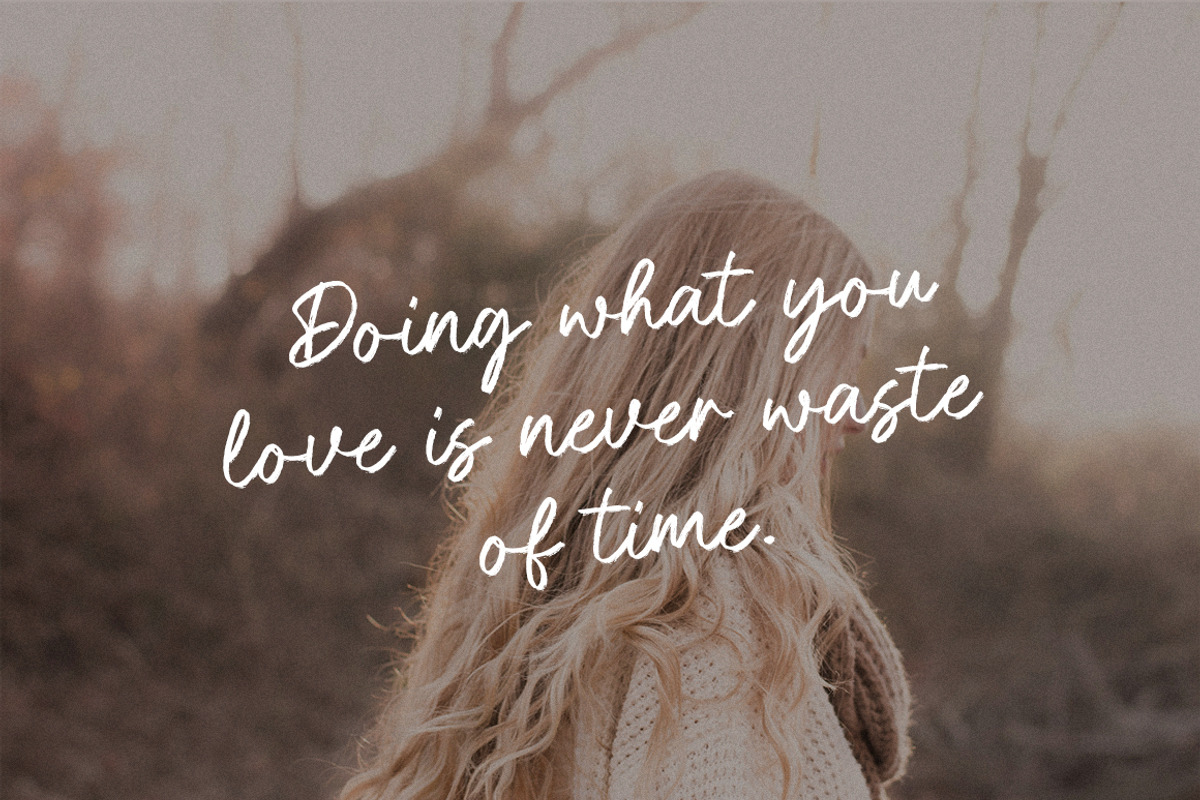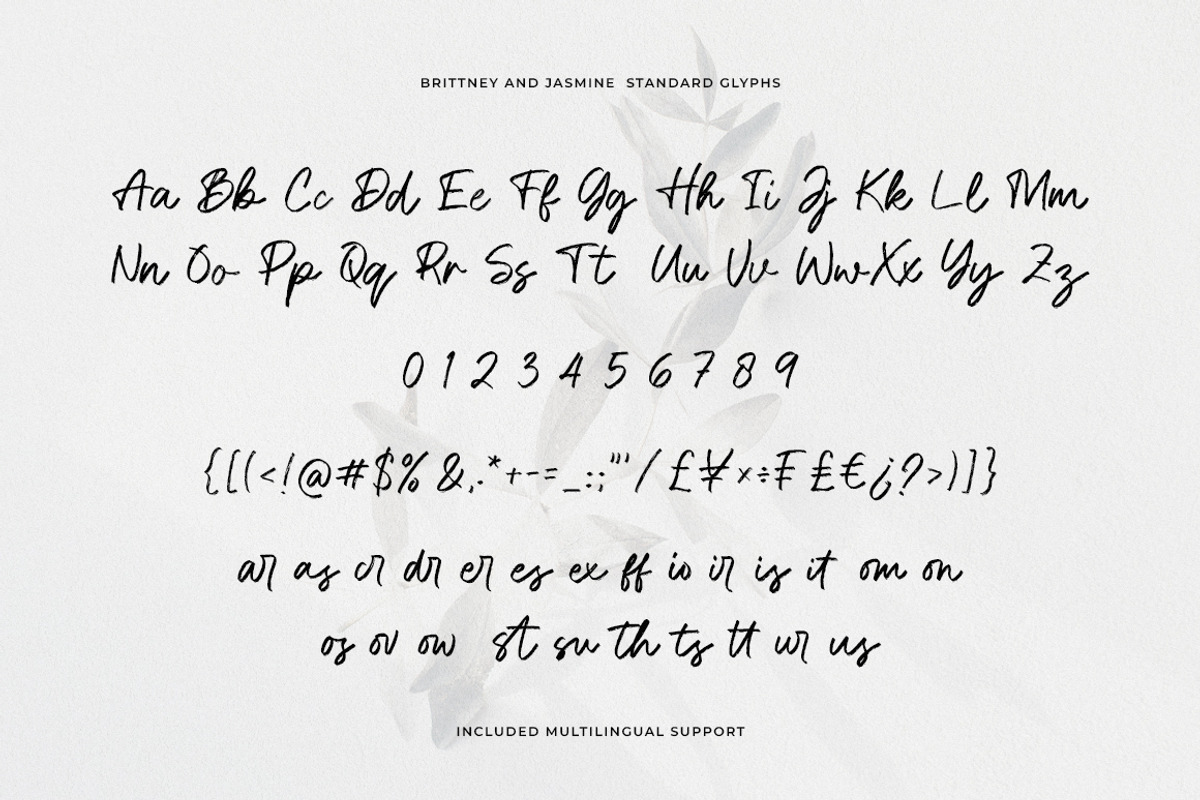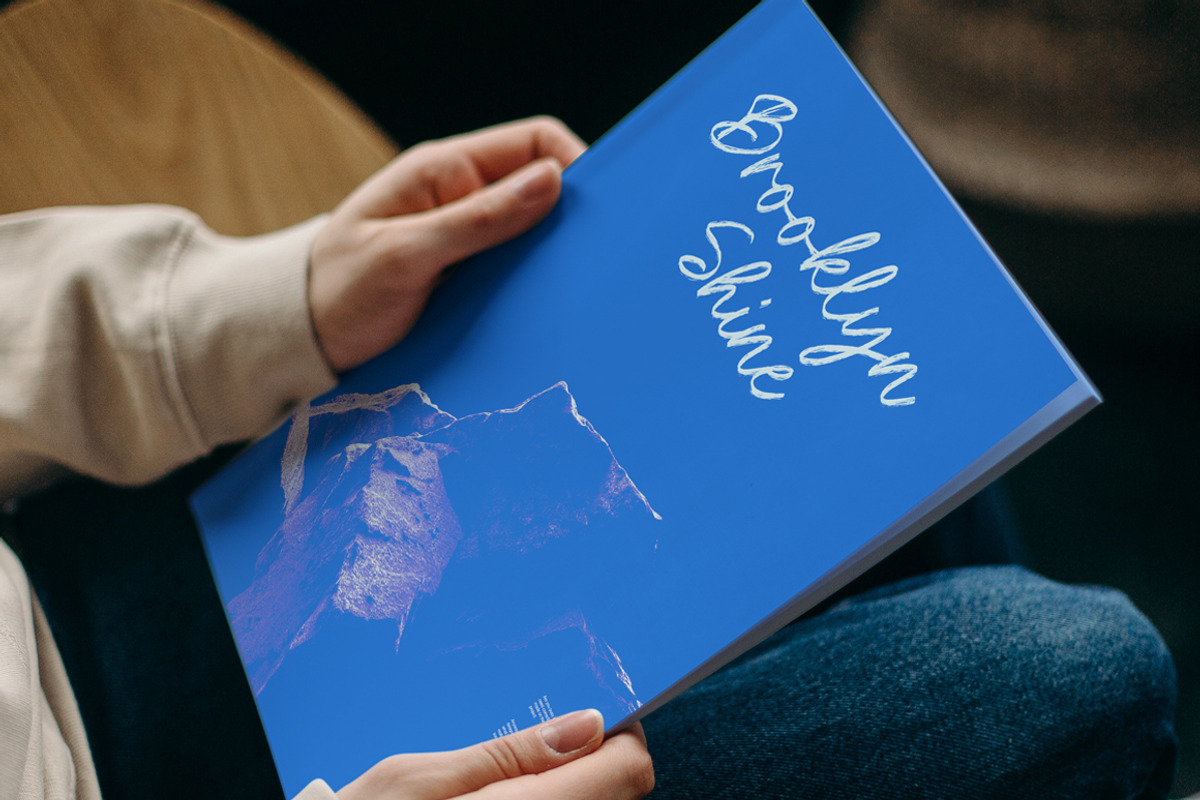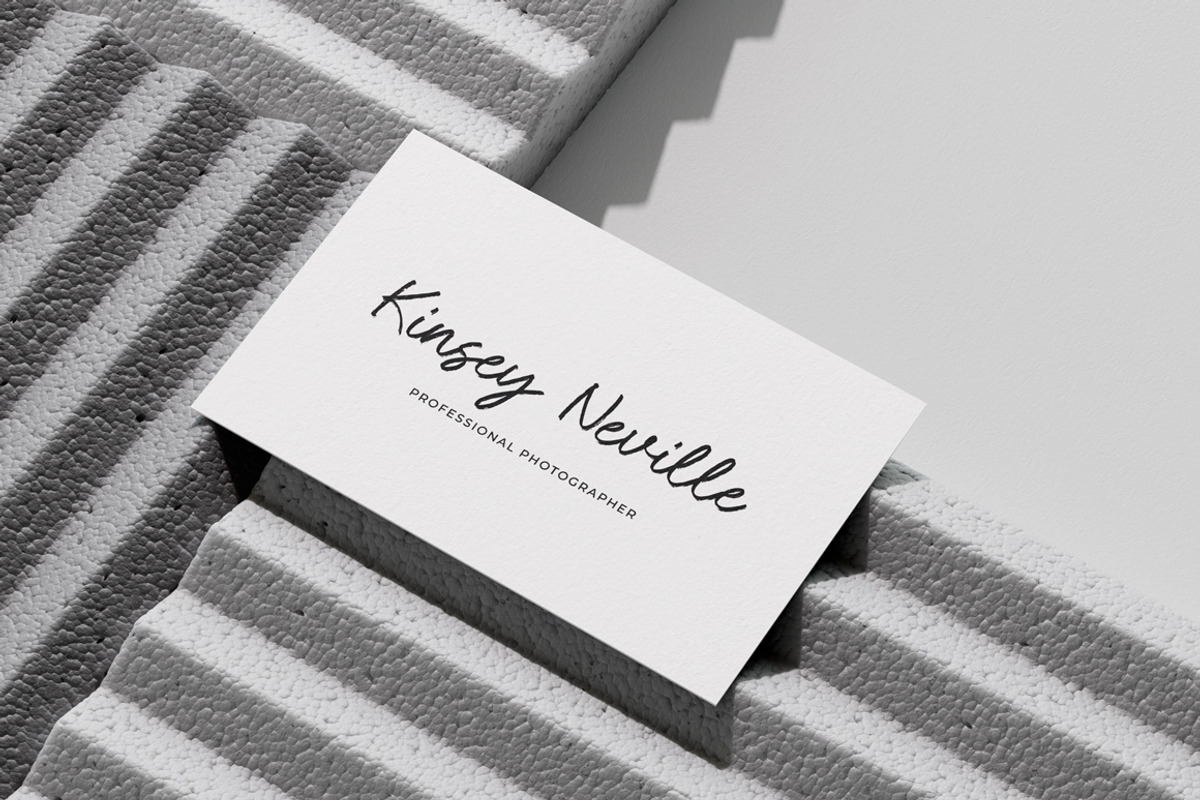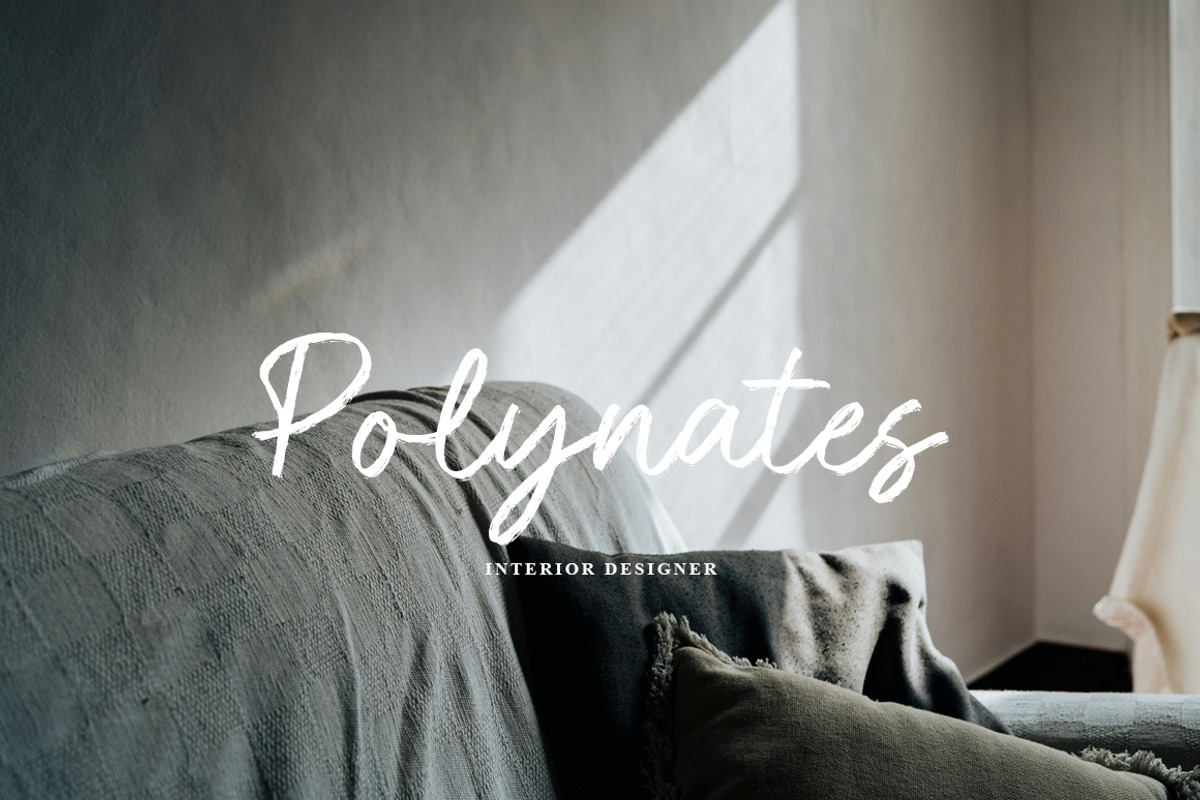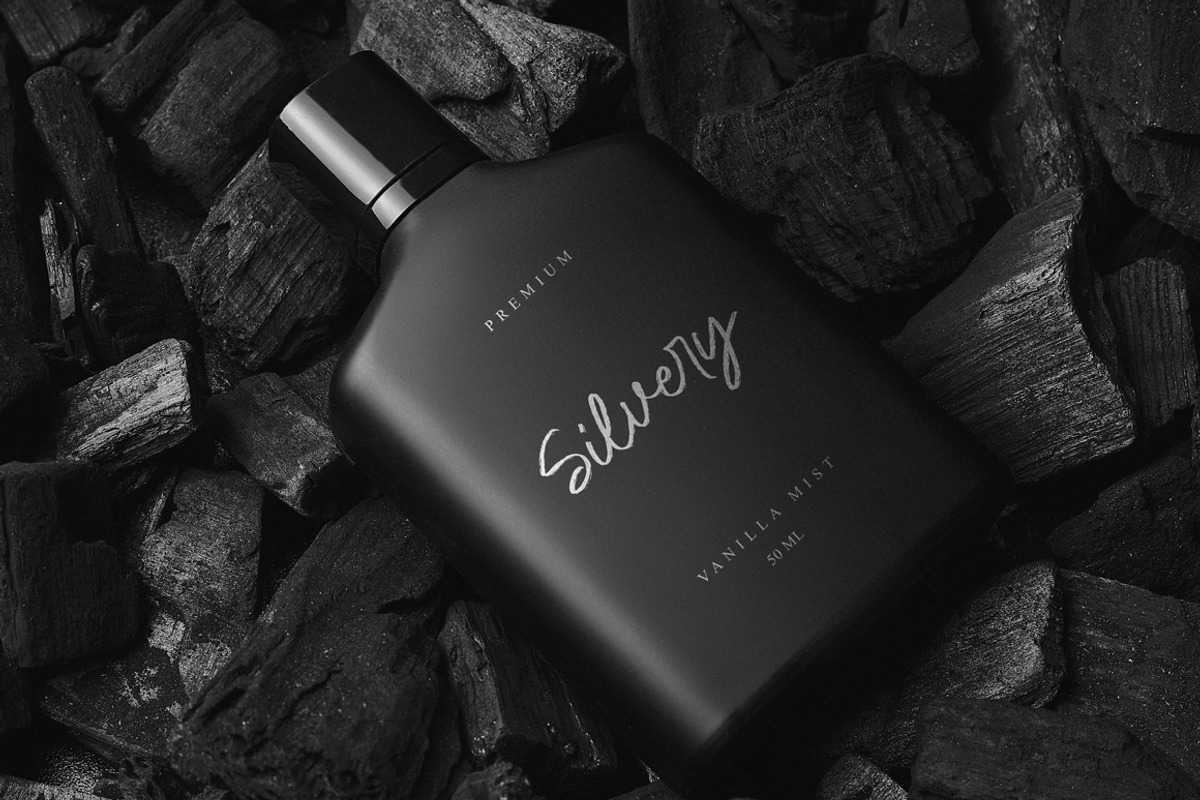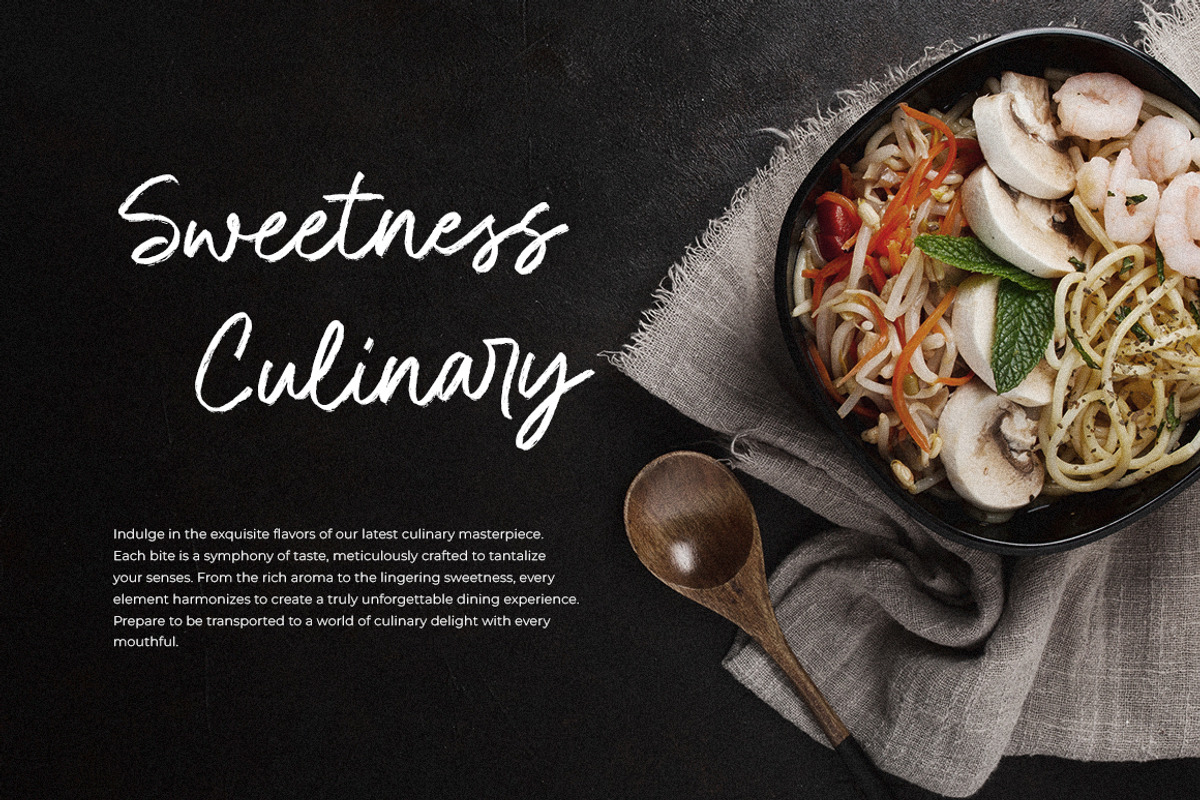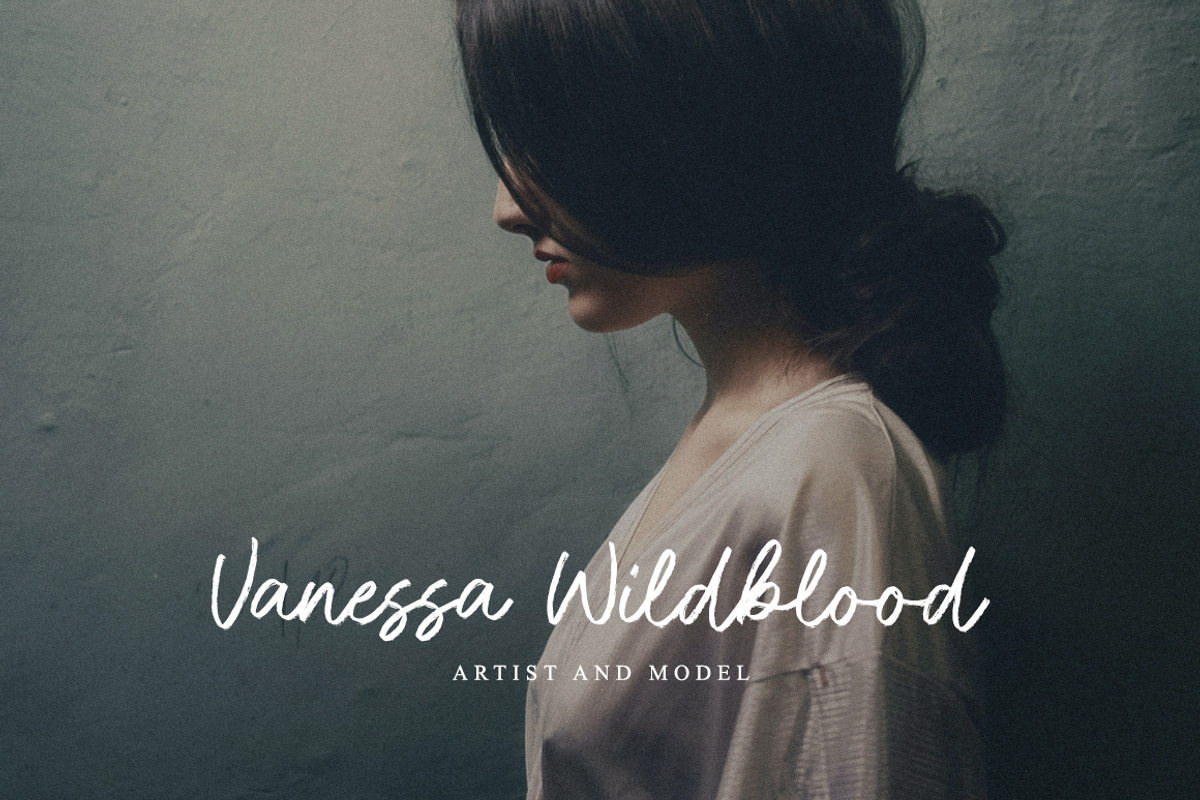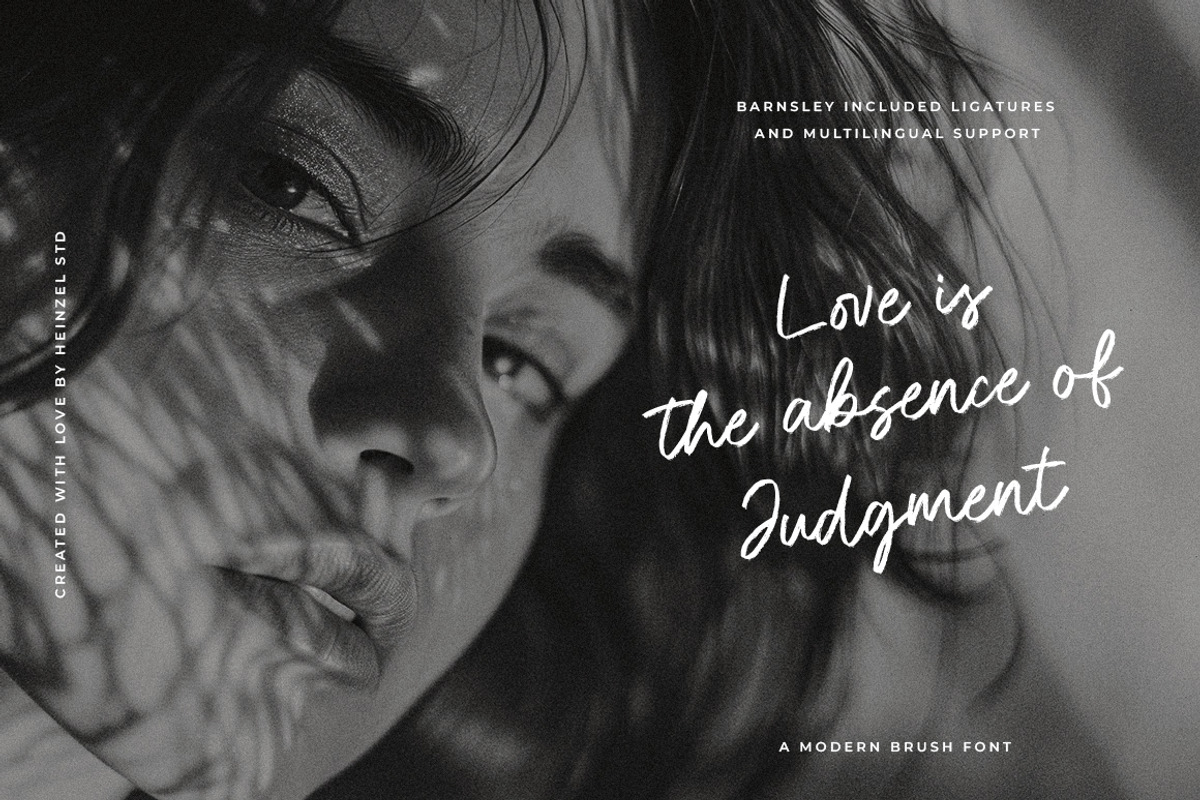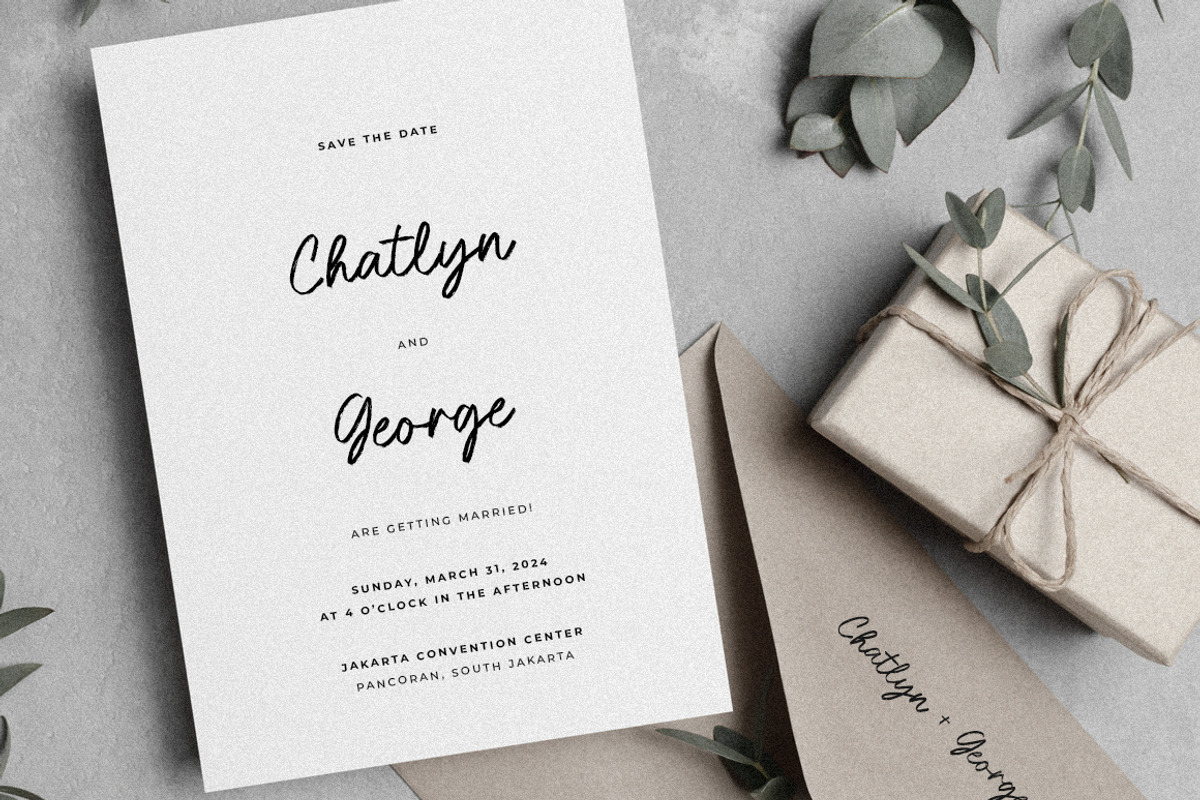
Brittney & Jasmine Brush Script Font
Brittney and Jasmine is a modern brush script font that combines bold strokes with a touch of elegance. Designed to capture the dynamic feel of hand-lettering, this font delivers a stylish and contemporary look that's perfect for branding, logos, invitations, social media graphics, and more. With its natural brush texture and fluid letterforms, Barnsley Brush adds personality and flair to any design project, making your words stand out with effortless charm.
Brittney and Jasmine Features:
- Numerical and Punctuation
- Multilingual Language